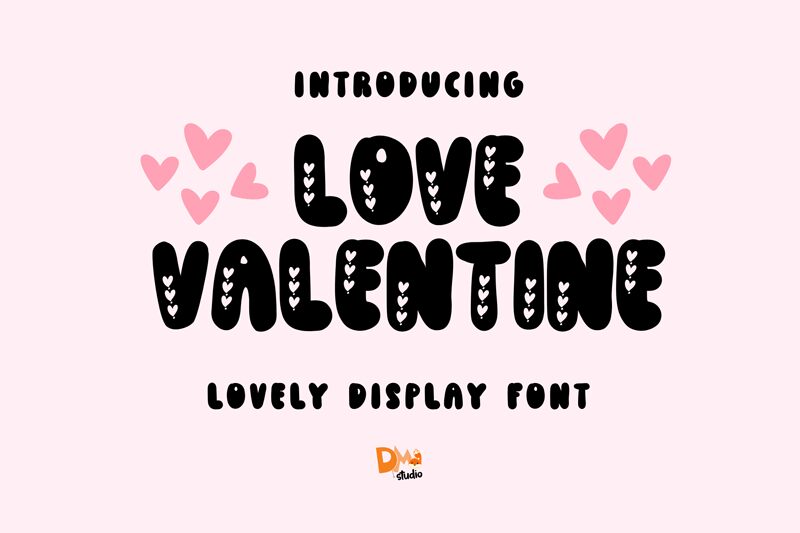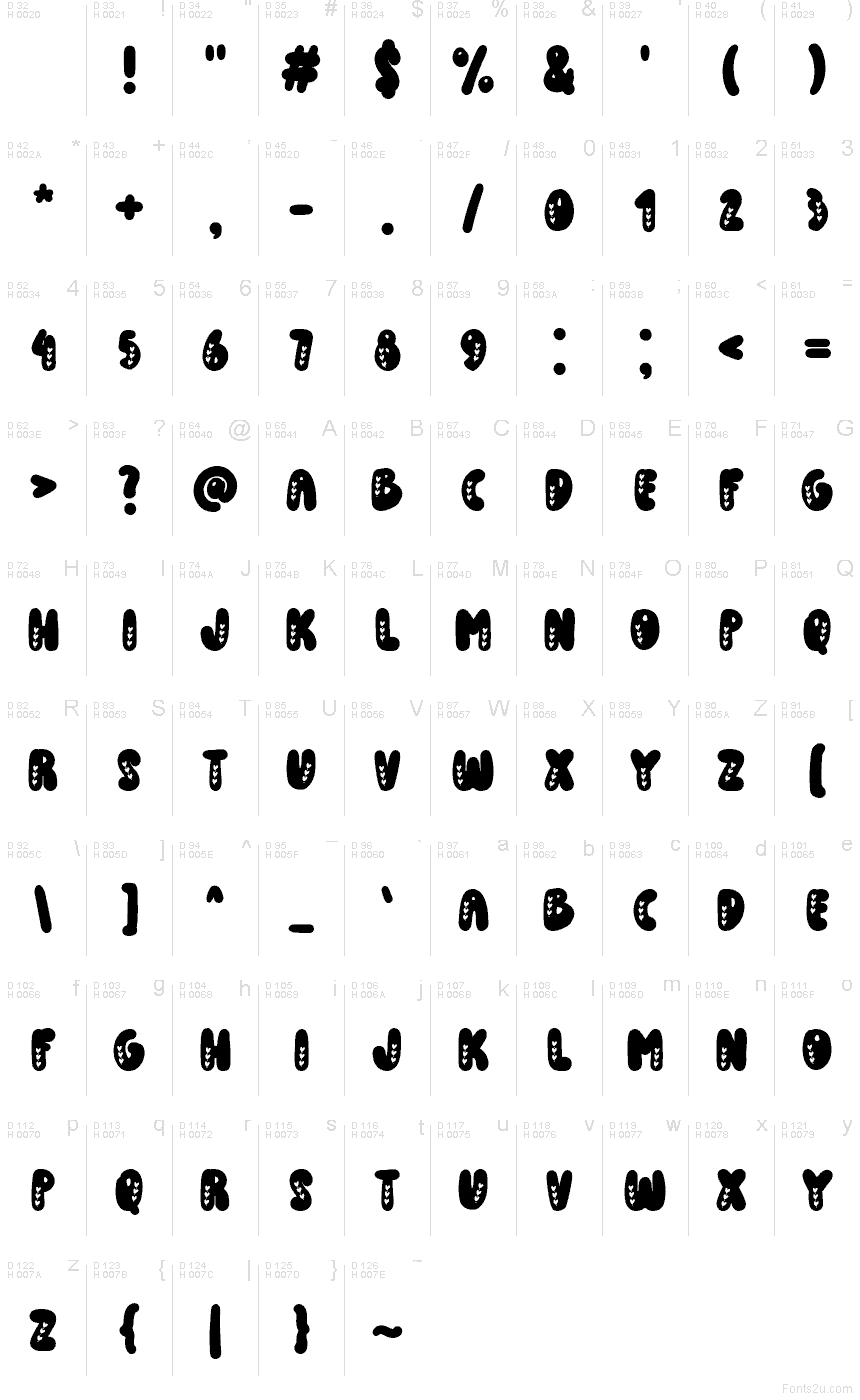
Love valentine font by DM Letter Studio - Dimas Prasetyo is a free decorative holiday font designed for loud, candy-sweet romance. Each bold, rounded letter is packed with tiny heart cutouts, creating a fun, bubbly texture that feels like it’s been piped in frosting or stamped from soft foam. The chunky shapes read clearly at a glance, so your message of love doesn’t get lost in the cuteness.
Using Love valentine, headlines and short phrases pop on Valentine’s cards, party invitations, stickers, gift tags, social media graphics, and candy or flower packaging. This free font shines when you set it large and keep the text brief, then pair it with a clean sans serif for the smaller details to balance all that playful charm.